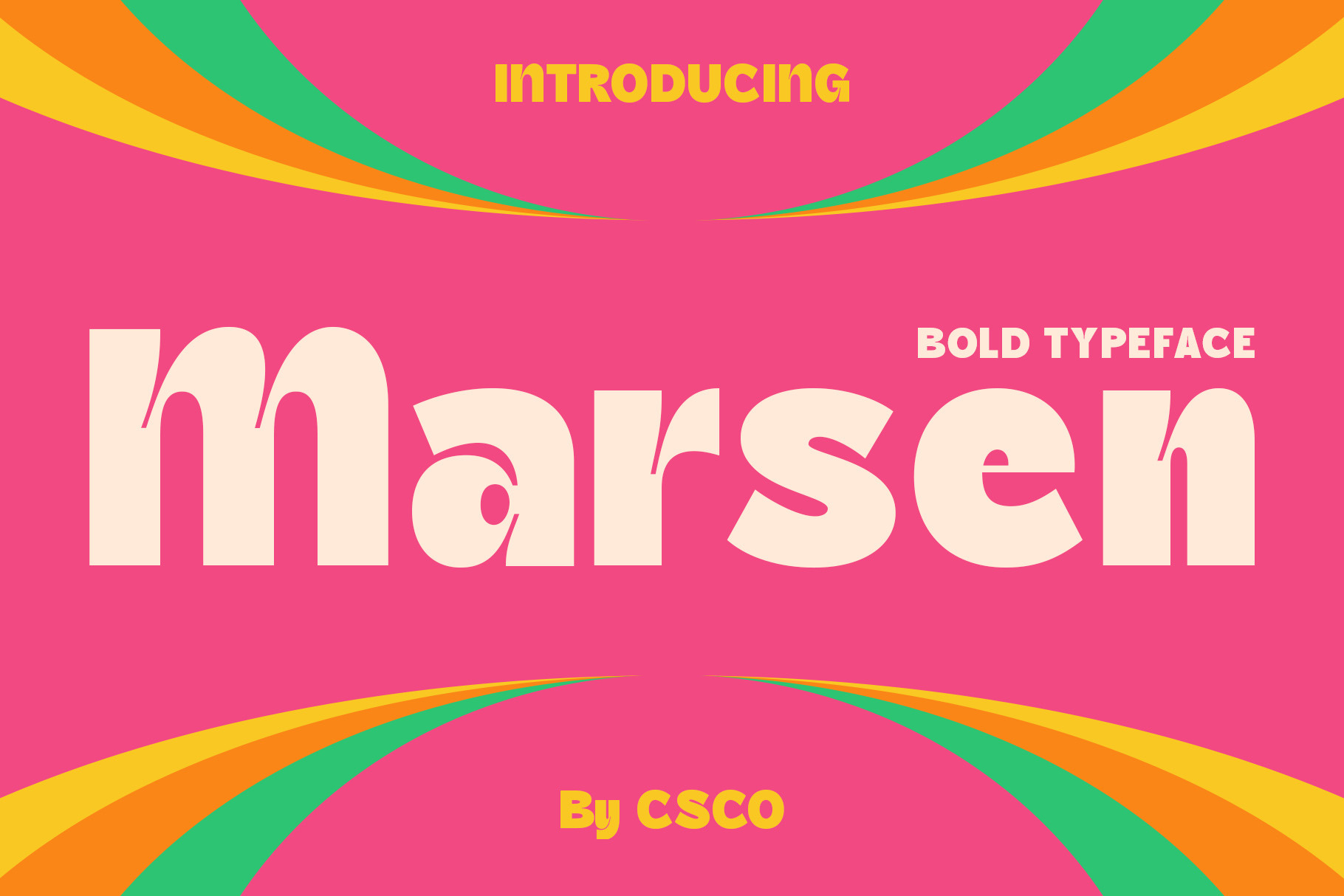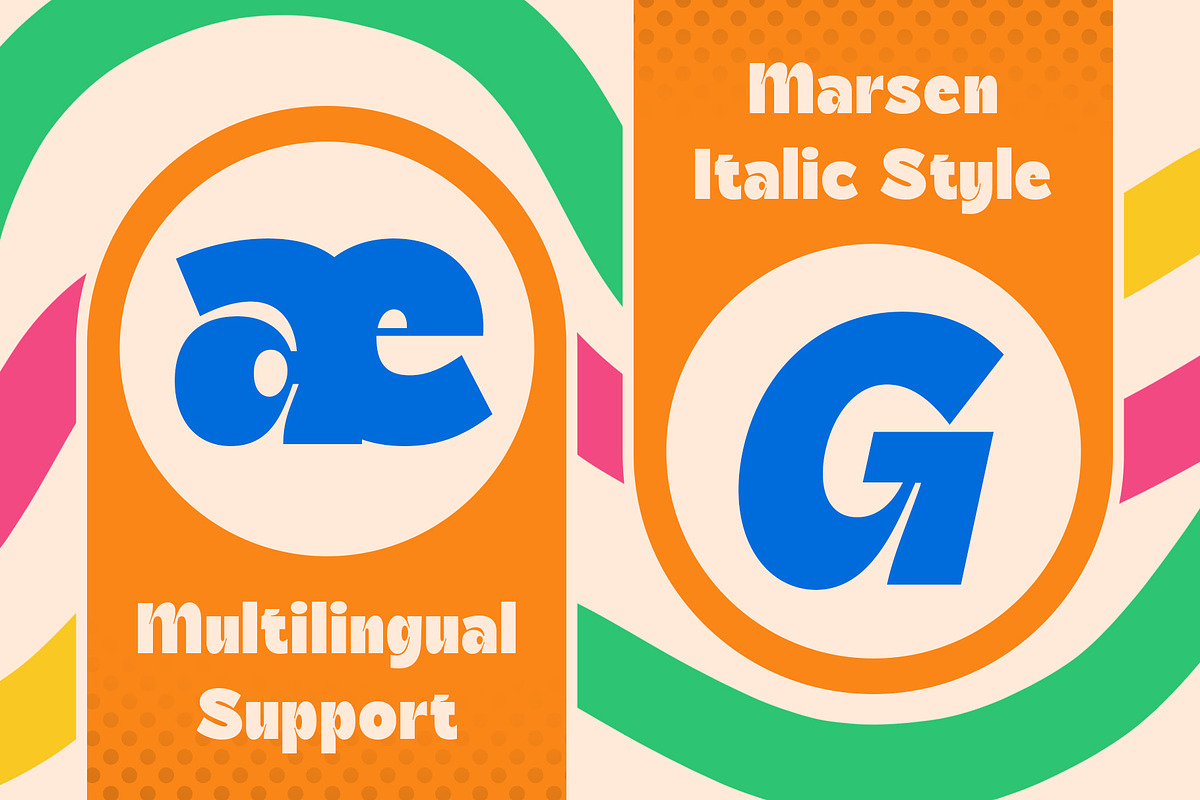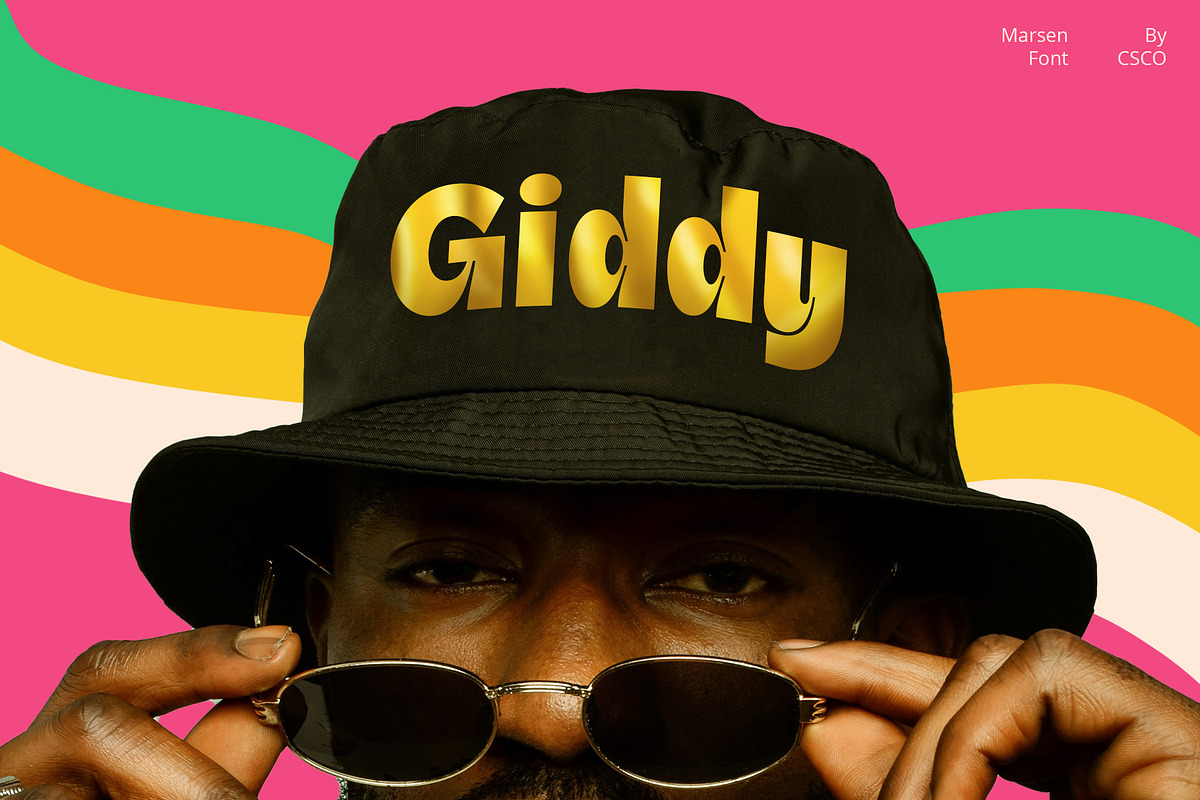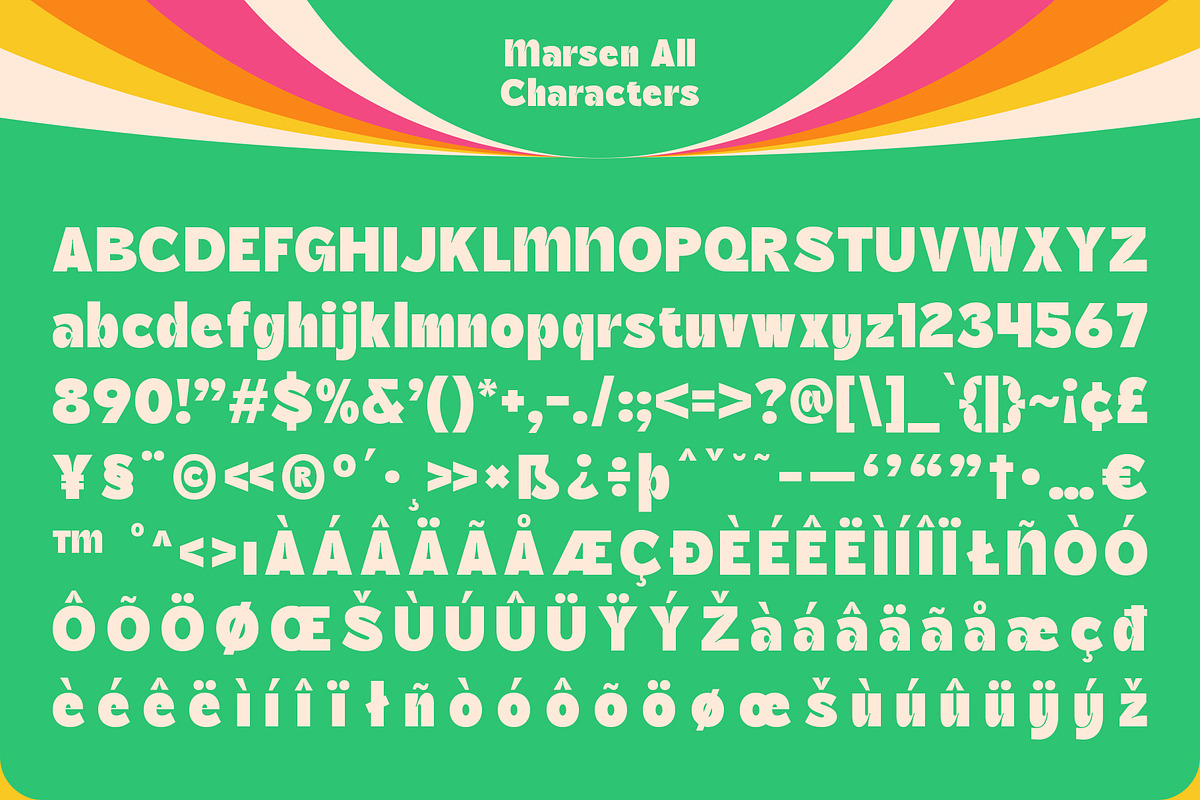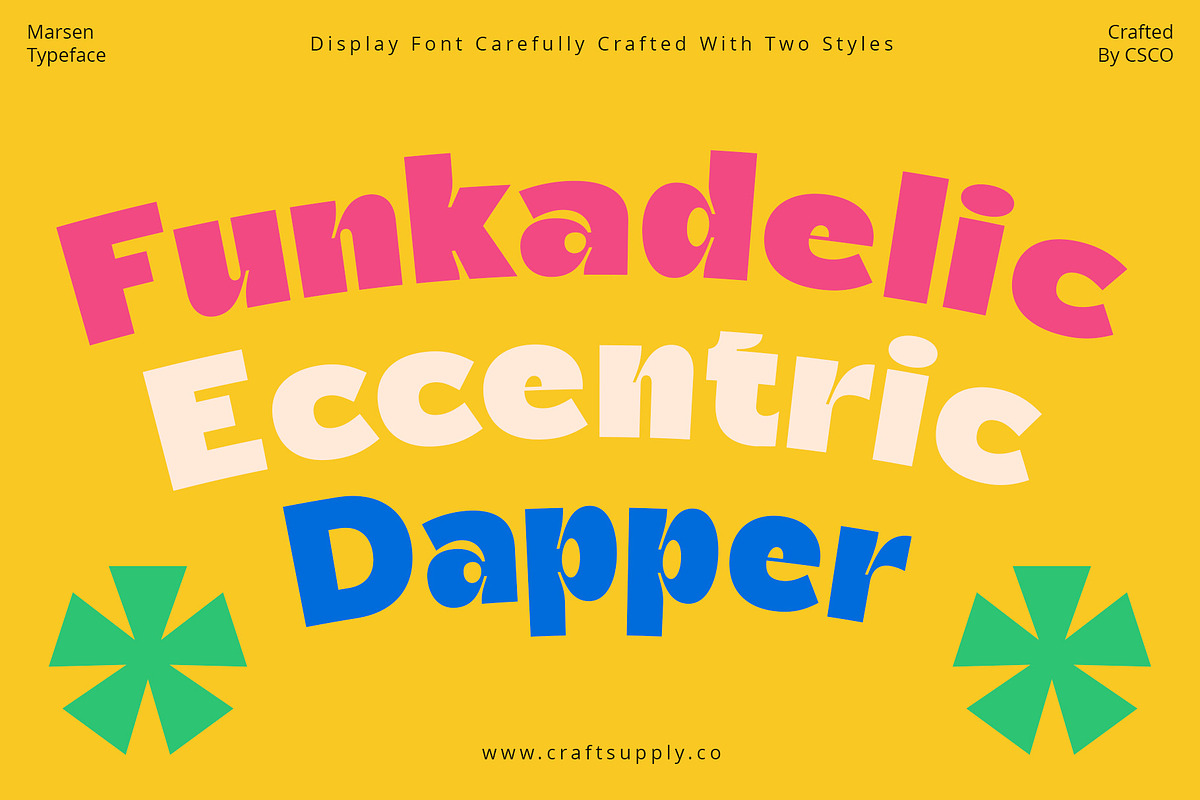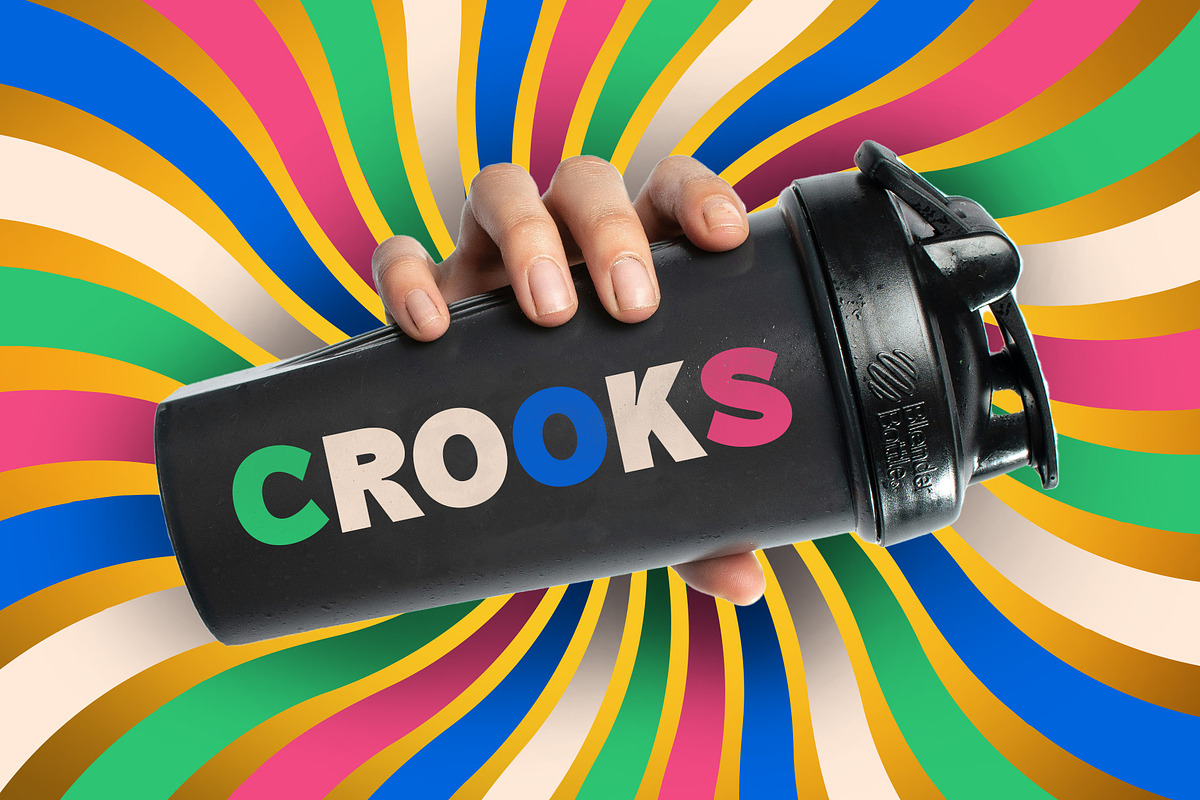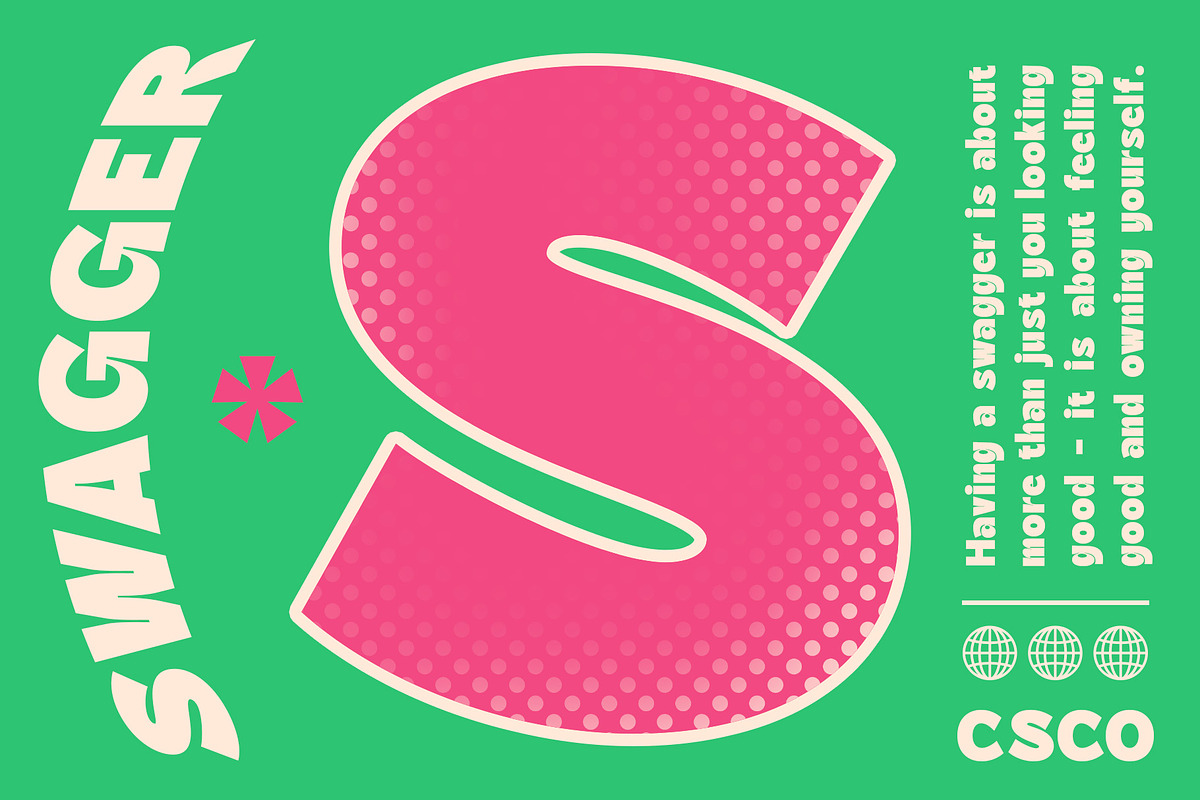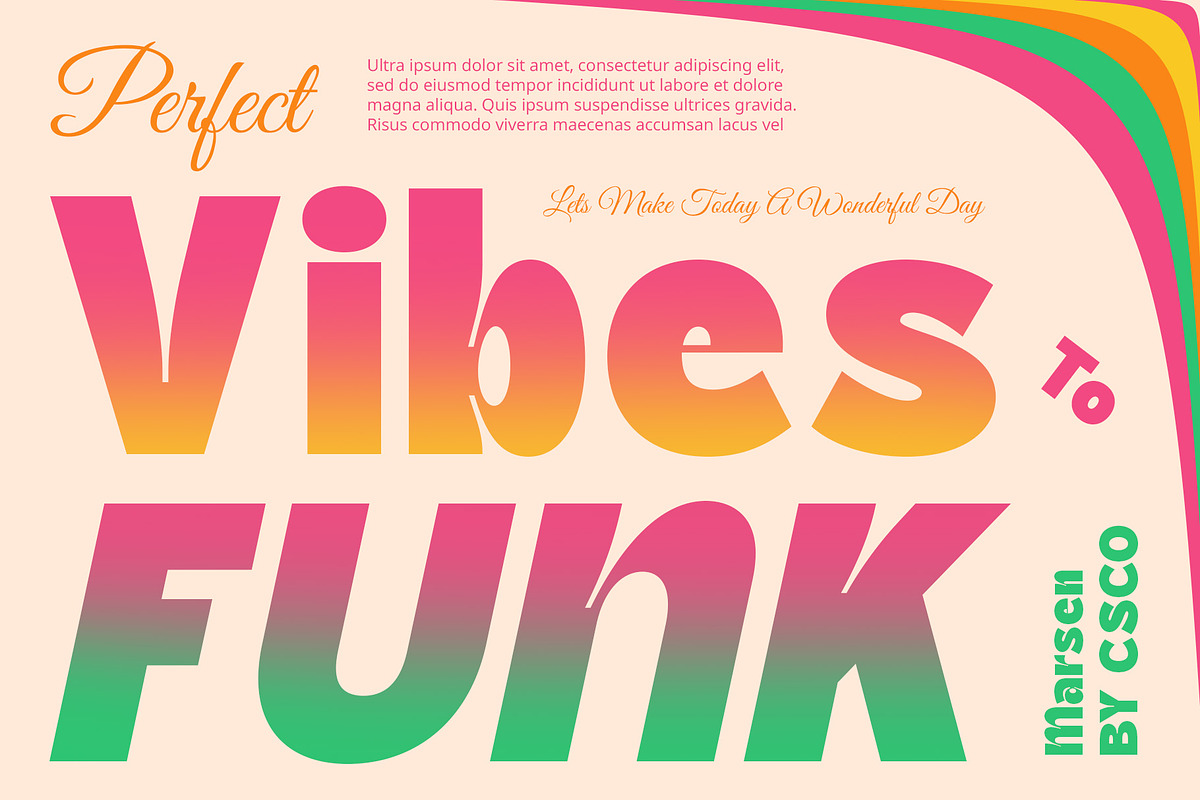
Marsen – Inktrap Font
Marsen – Inktrap Font: Bold, Playful, and Professional
Sans Serif Bold Typeface with Inktrap Marsen is a sans serif bold font featuring charming inktrap details, adding a delightful touch to its bold appearance. This unique combination infuses the font with a sense of playfulness and character, making it stand out in any design.
Cute, Joyful, and Funky Design With its inktrap details, Marsen Font exudes a cute, joyful, and funky vibe, perfect for designs that require a splash of personality. Whether used in posters, invitations, or social media graphics, Marsen adds a whimsical charm that captures attention and spreads positivity.
Versatile for Professional Applications Despite its playful aesthetic, Marsen Font maintains a professional edge, making it suitable for a wide range of design projects. Its bold weight and inktrap details strike the perfect balance between fun and functionality, allowing it to shine in branding, advertising, and corporate materials.
Expressive and Engaging Typography Let Marsen Font be your go-to choice for expressive and engaging typography. Whether you’re crafting bold headlines or adding flair to your designs, Marsen’s unique style injects energy and creativity into every project, ensuring memorable and impactful communication.
Embrace the Playful Side of Design Embrace the playful side of design with Marsen Font. From lighthearted branding campaigns to cheerful packaging designs, Marsen adds a touch of whimsy and joy, inviting audiences to connect with your message in a fun and memorable way.